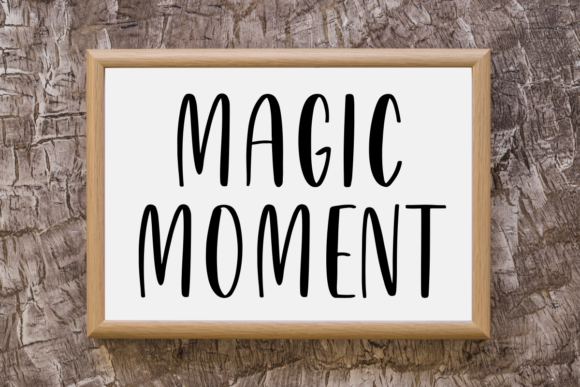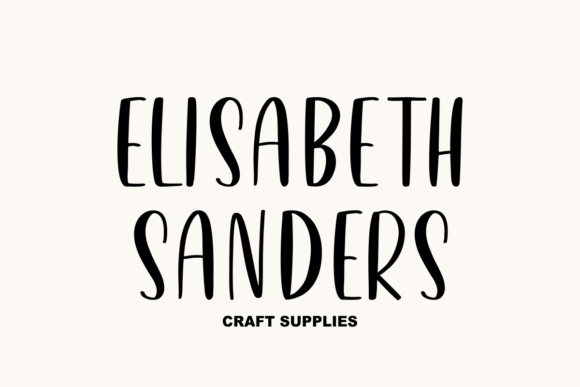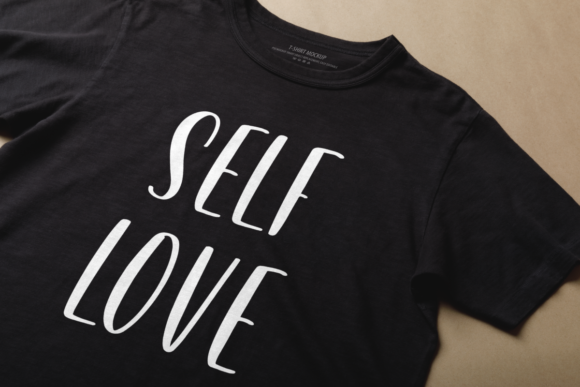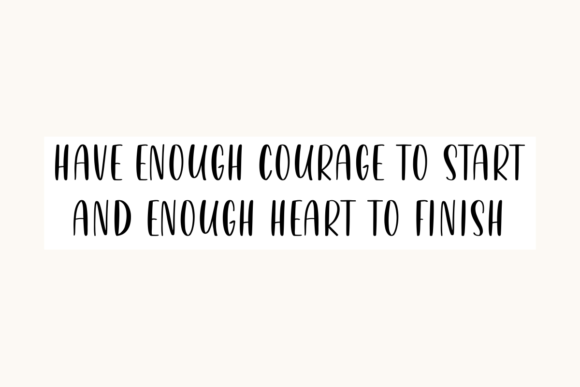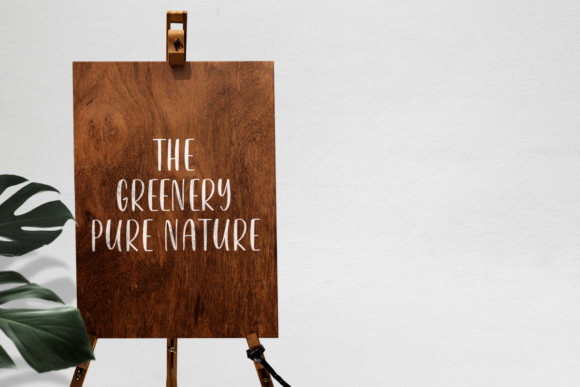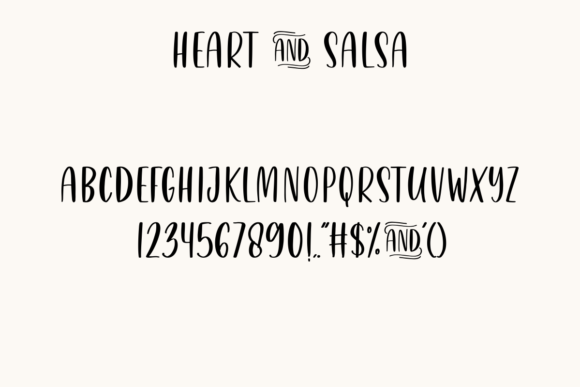
Introduction to Heart & Salsa Font
Do you remember the moment when you stumbled upon a design that just made your heart skip a beat? For many of us, it’s that instant spark of creativity that sets our imagination ablaze. And what if I told you that there’s a font that can evoke that same feeling every time you use it? Say hello to the Heart & Salsa Font, a laid-back, friendly handwritten font that radiates joy and cheerfulness.
Whether you’re working on a free download project or creating a high-quality design resource, the Heart & Salsa Font is an incredible asset to have in your library. Its transparent background and versatile style make it perfect for a wide range of creative projects, from digital art to print materials. As a designer, you’ll appreciate the value it brings to your work, adding a personal touch that elevates any creation.
Key Features of Heart & Salsa Font
- Unique, hand-drawn design perfect for creative projects requiring a touch of personality and flair.
- High-quality design resource ideal for use in digital and print projects, including logos, branding materials, and advertisements.
Honest Review: Heart & Salsa Font
As a designer, I was excited to try out the Heart & Salsa Font for my latest creative project. I downloaded it for free and was impressed with the high quality of the font.
What works well: ✨ The font’s unique, hand-drawn style is perfect for adding a touch of personality to any design. I particularly liked the fact that it’s available for free download, making it an excellent resource for designers on a budget. The transparent background is also a plus, as it allows for easy integration into any design.
- Unique, hand-drawn style
However, I did encounter a few limitations: ⚠️ The font’s bold weight is a bit inconsistent, which can make it difficult to use in certain contexts. Additionally, the font family is relatively small, which may limit its versatility.
Overall, I was impressed with the Heart & Salsa Font’s unique style and high quality. While it may have some limitations, I would definitely recommend it as a design resource for creative projects.
The Heart & Salsa Font is ideal for various creative projects, including graphic designs, marketing materials, social media posts, presentations, and documents. Its high-quality design and versatility make it a valuable resource for designers, artists, and creatives.